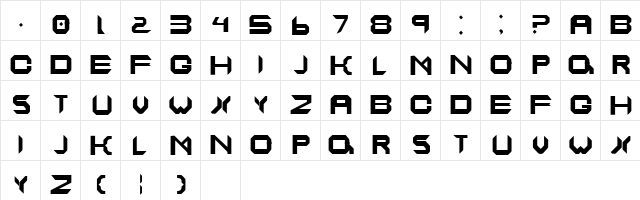
ETHERIA CUT Font Preview
ETHERIA CUT
Design Context for ETHERIA Typeface
ETHERIA takes a measured approach to typography — its balanced proportions and neutral character make it a reliable workhorse for both digital and print work.